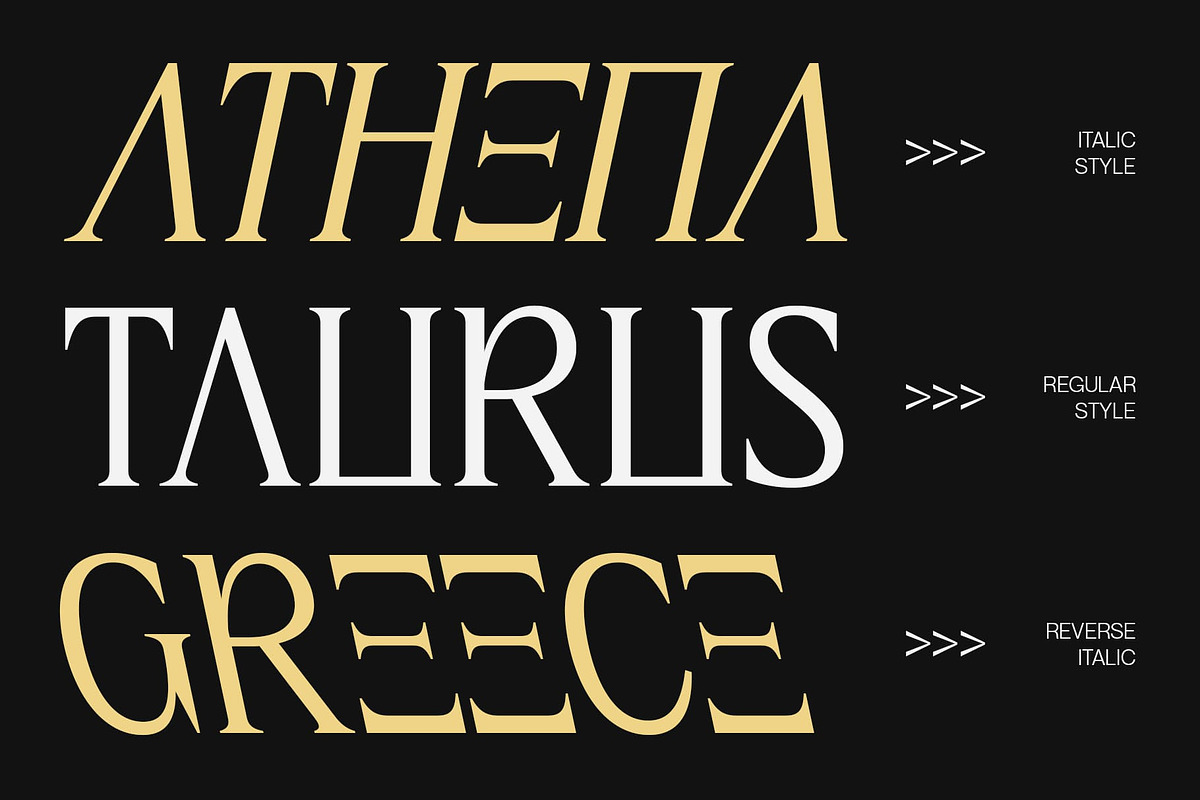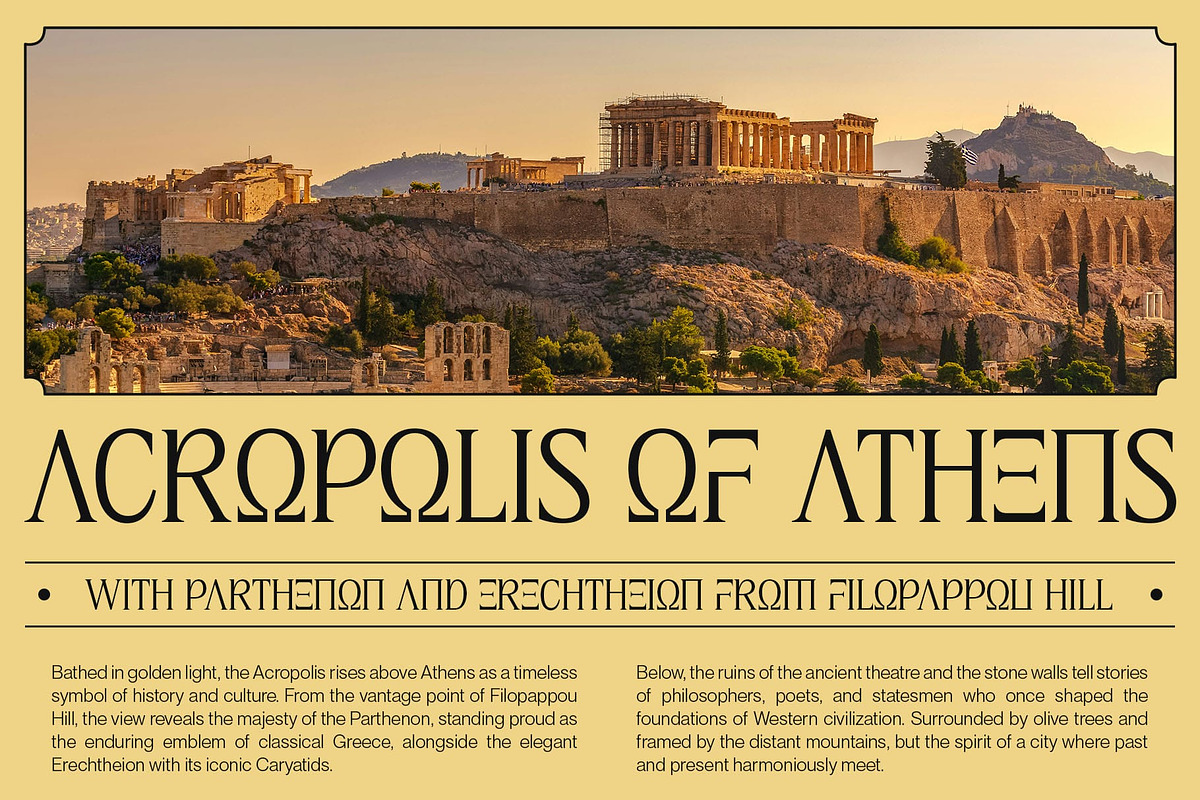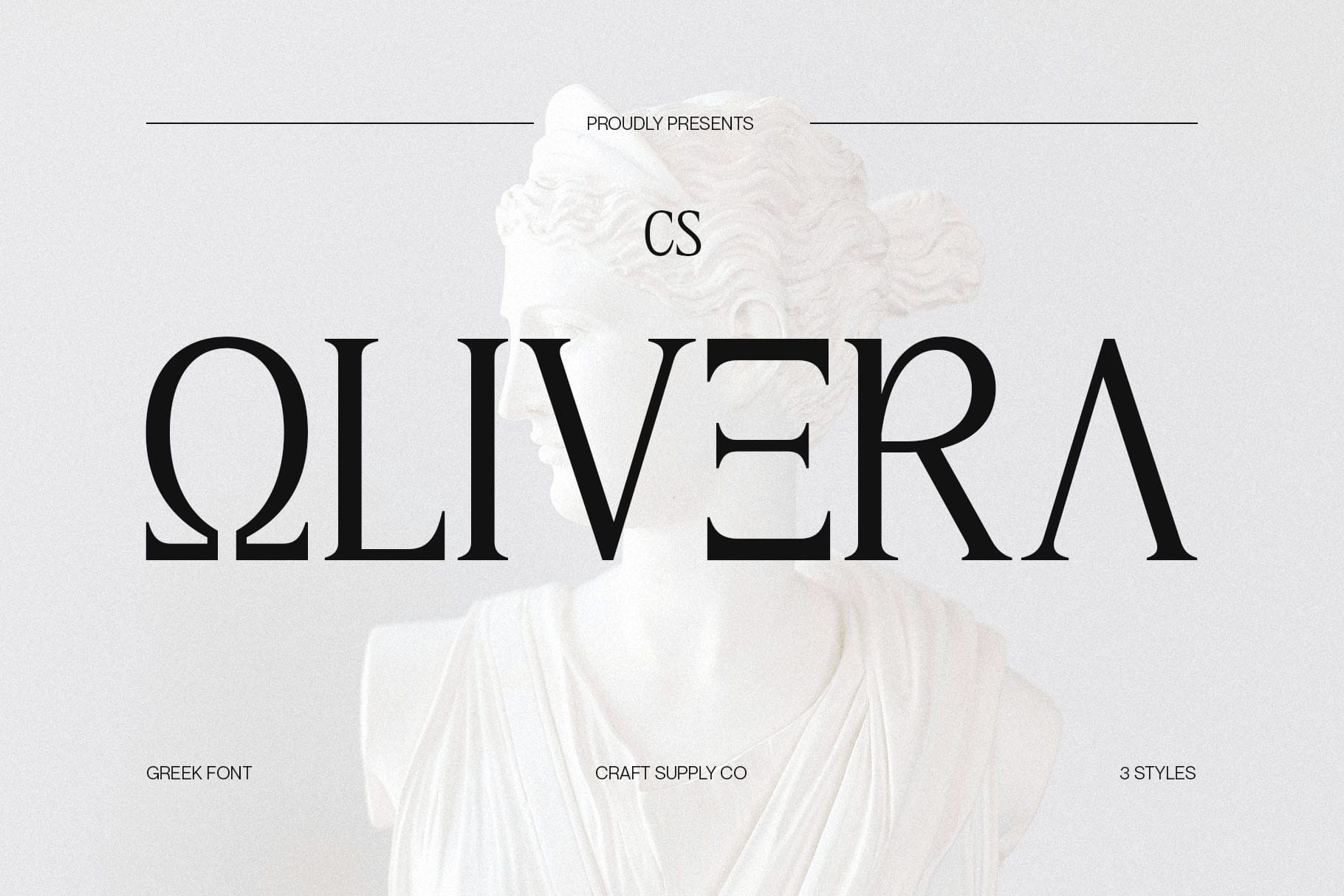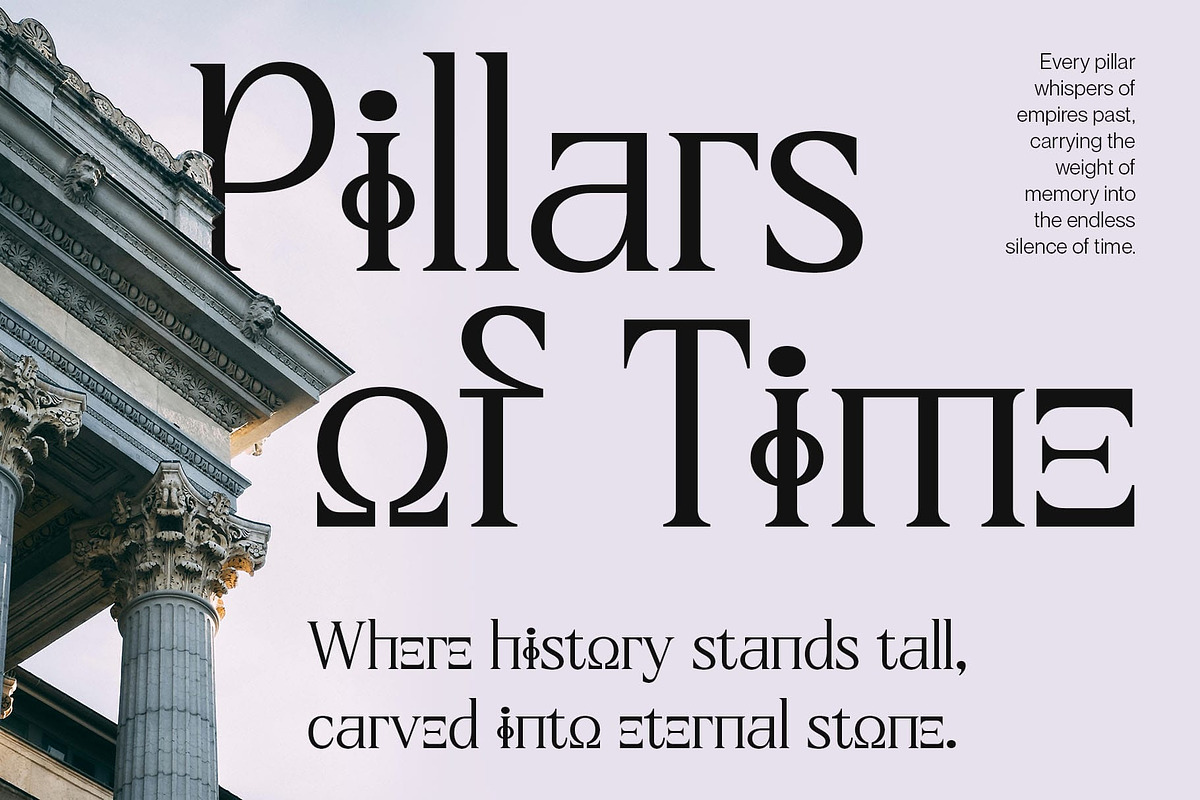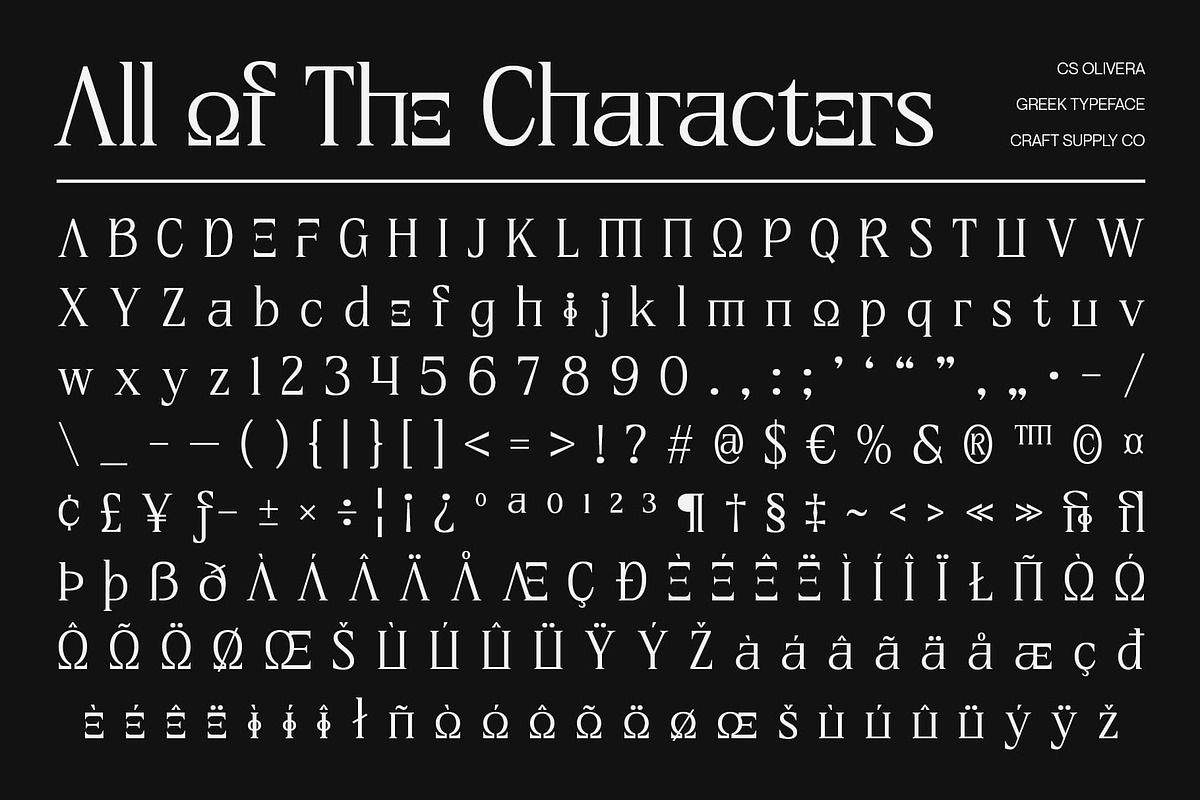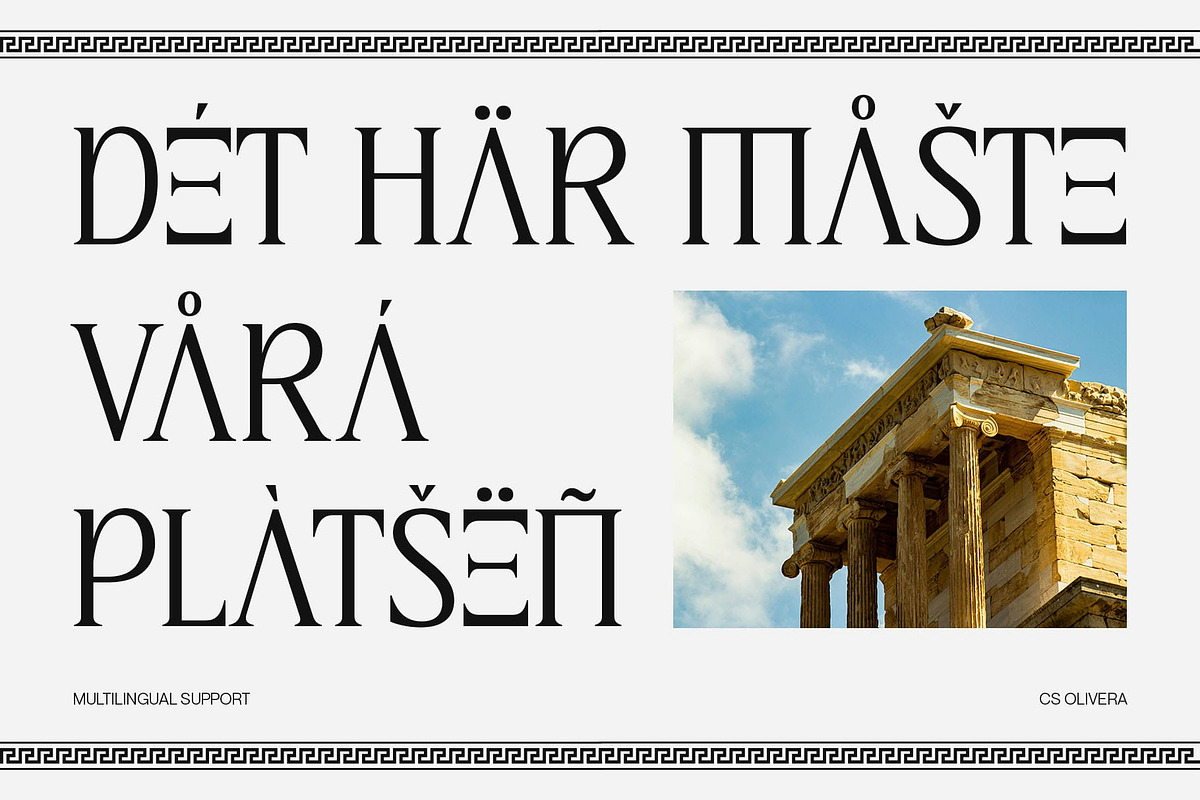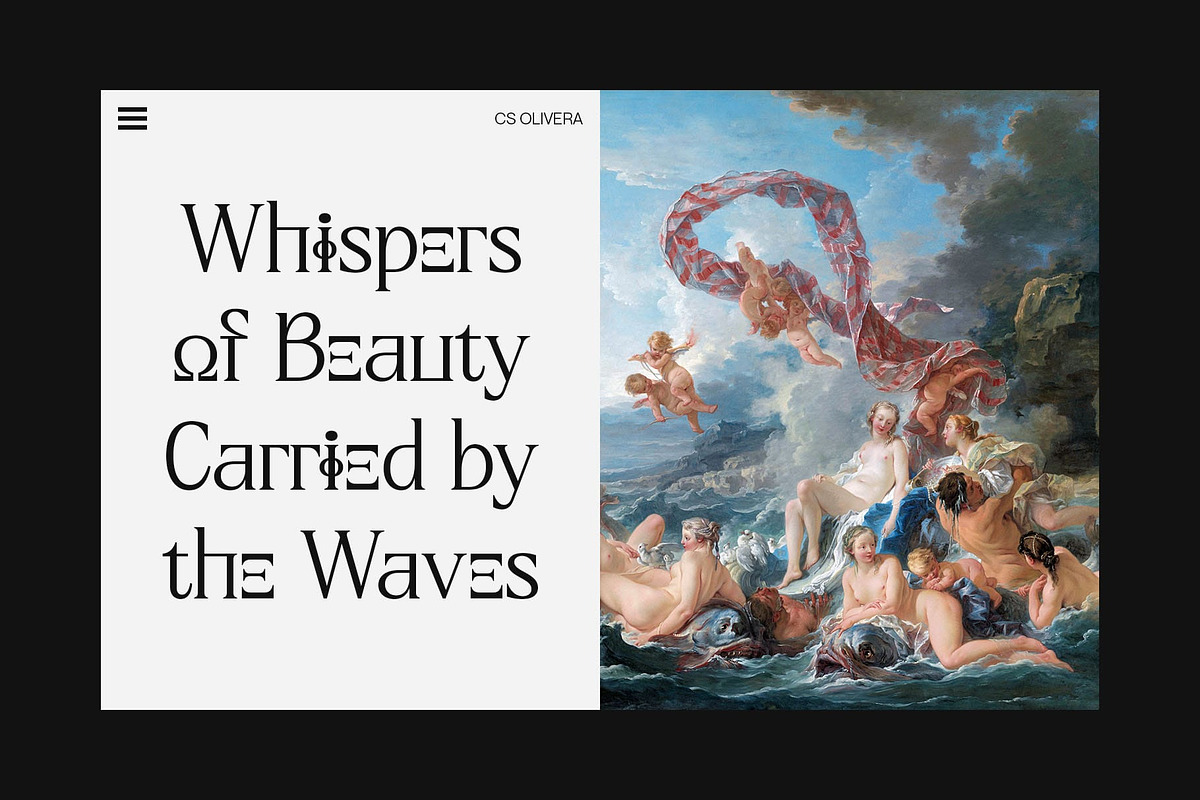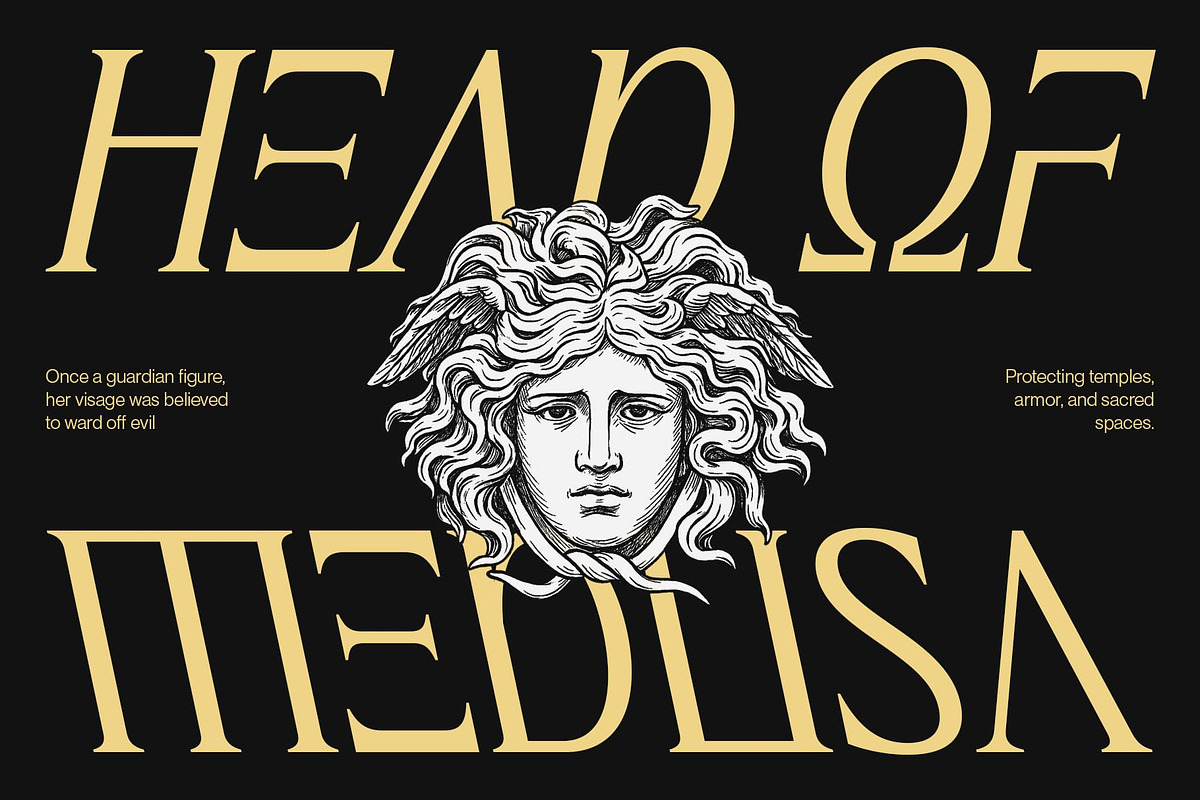
CS Olivera – Greek Font
CS Olivera – Greek Font: Classical Elegance Reimagined
Modern Classic Serif Inspired by Greek Heritage CS Olivera is a modern classic serif display font drawing inspiration from ancient Greek letterforms. Its elegant serifs reflect the grace and precision of historical inscriptions, while the contemporary refinements ensure clarity, readability, and versatility for modern design applications.
Harmonizing History and Contemporary Style This typeface blends classical sophistication with clean modern lines, creating a harmonious balance between timeless elegance and contemporary aesthetics. Each character carries subtle historical nuances while remaining polished and professional, making CS Olivera a font that honors tradition without compromising on modern design needs.
Ideal for Sophisticated Projects CS Olivera excels in projects that aim to communicate refinement and prestige. Perfect for luxury branding, editorial layouts, book covers, posters, and creative projects that embrace cultural or historical elements, this font adds authority, elegance, and a professional tone to any design. Every character reflects historical inspiration, yet is streamlined for modern use, giving your designs a sense of cultural depth and professional polish.
Timeless, Professional, and Versatile The combination of ancient inspiration and modern clarity makes CS Olivera highly versatile. Its structured yet elegant forms allow it to work across both digital and print media, ensuring your designs convey a sense of timeless sophistication and artistic credibility.